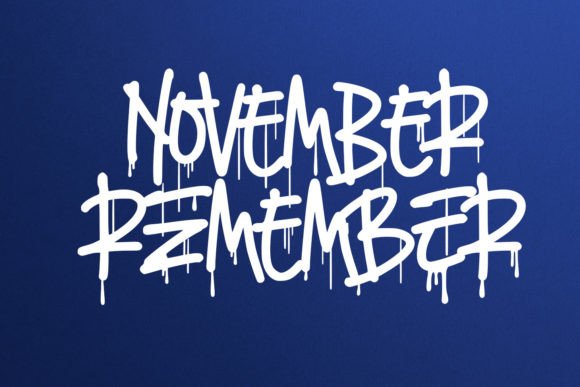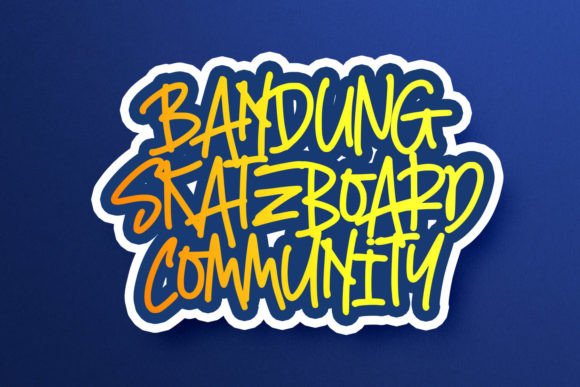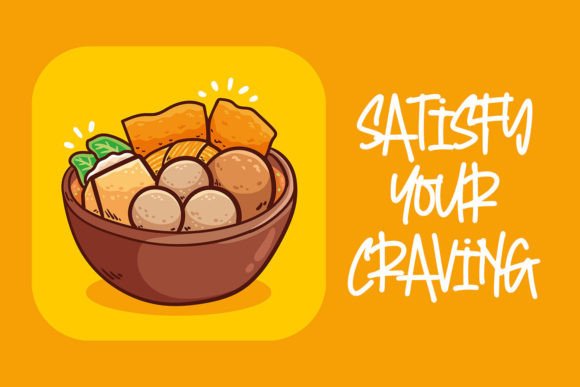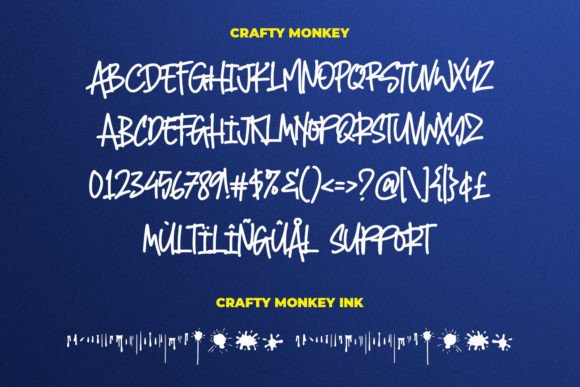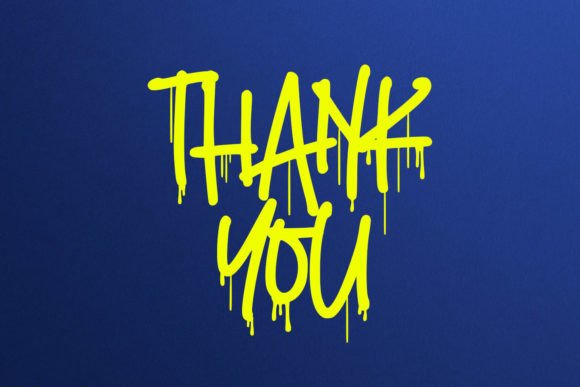
Crafty Monkey Font: Unleash Your Creativity with this Urban-Style Display Font
Are you a designer, crafter, or DIY enthusiast looking for a font that can add a touch of urban cool to your projects? Look no further than the Crafty Monkey Font! This graffiti-inspired display font is perfect for creating eye-catching posters, trendy stickers, and streetwear designs that demand attention.
What is Crafty Monkey Font?
Crafty Monkey Font is a cool and fun urban-style display font that is designed to bring a touch of street art to your designs. Its unique graffiti-inspired characters make it stand out from more traditional fonts, giving your projects a trendy and edgy look.
Key Features of Crafty Monkey Font
- Graffiti-Inspired Characters: The Crafty Monkey Font features graffiti-inspired characters that are perfect for creating streetwear designs, trendy stickers, and eye-catching posters.
- Urban-Style Display Font: This font is designed to be used as a display font, making it perfect for headlines, titles, and other attention-grabbing elements.
- Coo and Fun: The Crafty Monkey Font has a cool and fun vibe that is sure to add a touch of personality to your designs.
- Trendy and Edgy: This font is perfect for designers and crafters who want to create designs that are trendy and edgy.
Uses for Crafty Monkey Font
The Crafty Monkey Font is versatile and can be used for a variety of projects, including:
- Streetwear Designs: Use the Crafty Monkey Font to create bold and eye-catching designs for streetwear clothing and accessories.
- Trendy Stickers: This font is perfect for creating trendy stickers that are sure to grab attention.
- Eye-Catching Posters: Use the Crafty Monkey Font to create posters that demand attention and make a statement.
- DIY Projects: This font is also great for DIY enthusiasts who want to add a touch of urban cool to their projects.
Why Choose Crafty Monkey Font?
There are many fonts available that claim to be urban-style display fonts, but the Crafty Monkey Font stands out from the rest. Here are just a few reasons why:
- Unique Graffiti-Inspired Characters: The Crafty Monkey Font features unique graffiti-inspired characters that are sure to make your designs stand out.
- High-Quality Design: The Crafty Monkey Font is designed to high standards, ensuring that your designs look professional and polished.
Tips for Using Crafty Monkey Font
Here are a few tips for using the Crafty Monkey Font:
- Use it as a Display Font: The Crafty Monkey Font is designed to be used as a display font, so use it to grab attention and make a statement.
- Experiment with Colors: The Crafty Monkey Font looks great in bold and bright colors, so don’t be afraid to experiment.
- Pair it with Other Fonts: This font pairs well with other fonts, so try pairing it with a sans-serif font for a contrasting look.
The Crafty Monkey Font is a cool and fun urban-style display font that is perfect for designers, crafters, and DIY enthusiasts who want to add a touch of street art to their projects. With its unique graffiti-inspired characters and easy-to-use design, this font is sure to become a favorite. So why wait? Download the Crafty Monkey Font today and start creating eye-catching designs that demand attention!